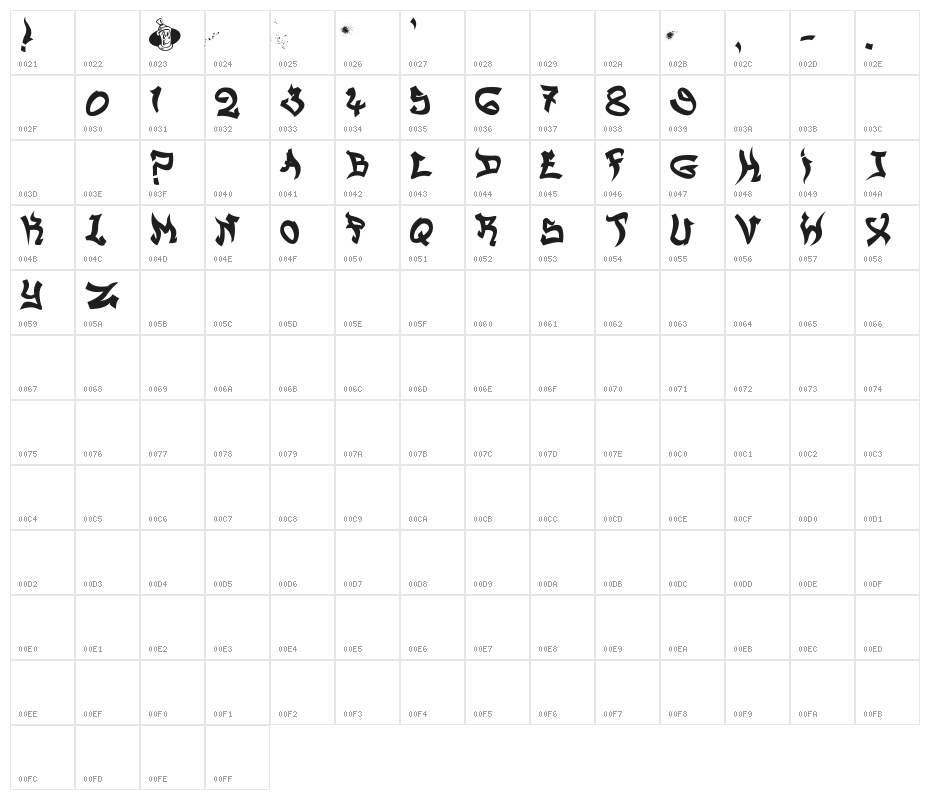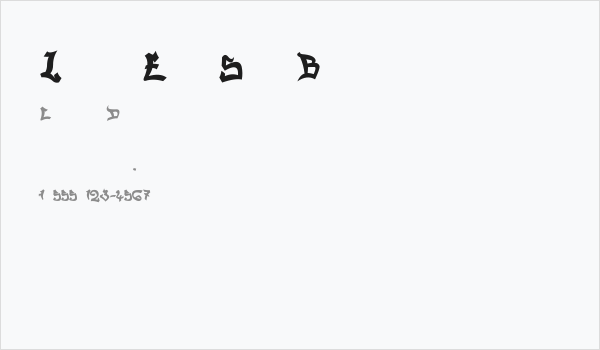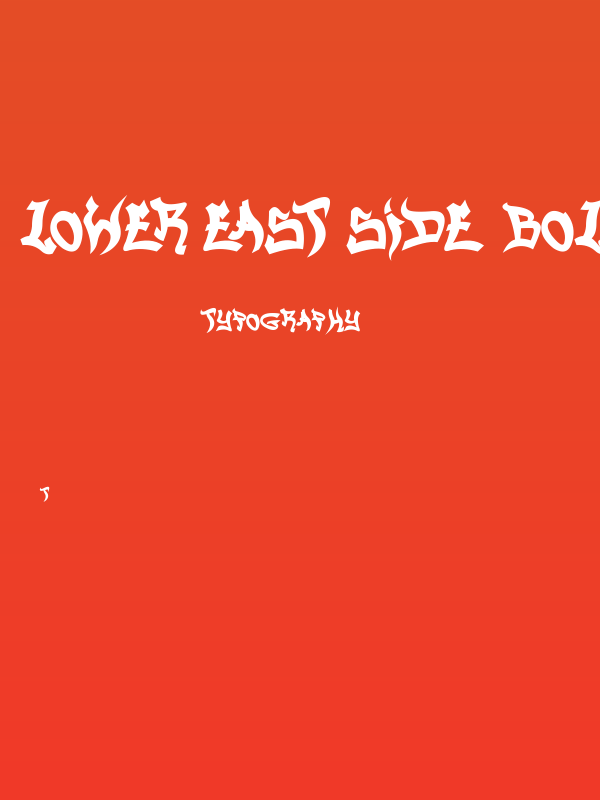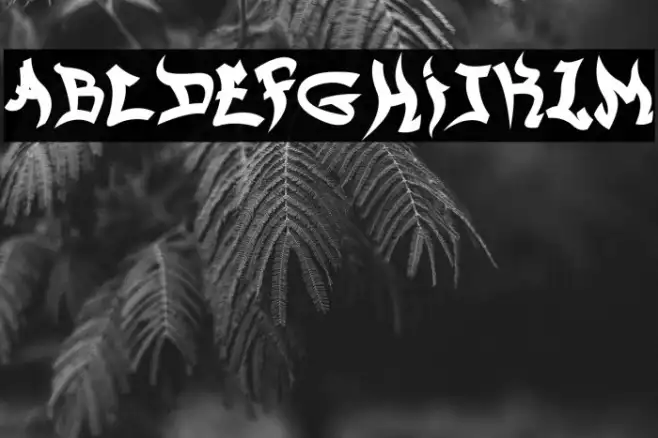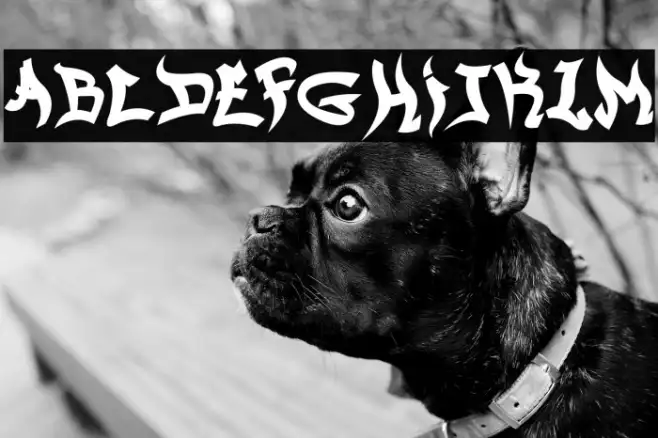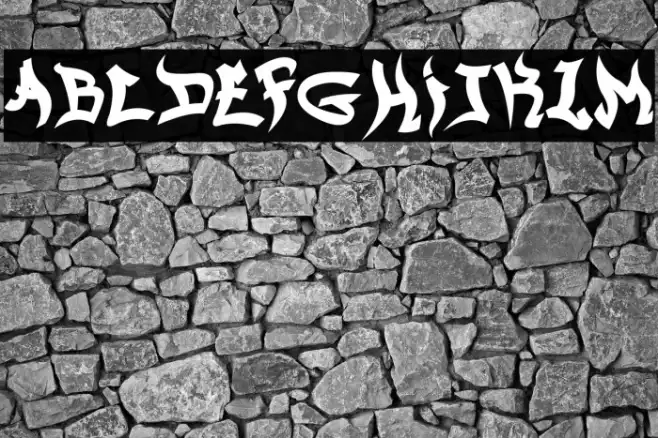
Lower East Side Bold Font
Lower East Side Bold Description
This font features a bold and dynamic style with a graffiti-inspired aesthetic. The characters are designed with sharp, angular edges and a sense of movement, giving them a rebellious and urban feel. The uppercase letters are particularly striking, with unique flourishes and exaggerated serifs that add to the overall impact. The numbers and special characters maintain this bold style, ensuring consistency across all elements. This font is perfect for projects that require a strong, eye-catching design with a touch of street art flair.
| Overall Style | Urban, Graffiti, Bold |
| Proposed Projects | Ideal for street art designs, urban-themed posters, music album covers, and edgy branding projects. |